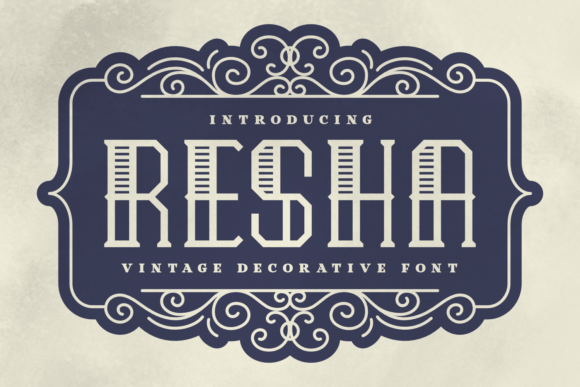
Discover Resha Font, the ultimate decorative font that will transport you back in time to an era of vintage charm and nostalgia. This striking serif display typeface has been meticulously crafted to capture the essence of old-school aesthetics, making it the perfect choice for designers and creatives seeking to evoke a sense of history and authenticity in their designs.
Immerse yourself in Resha Font's captivating collection of characters, each meticulously designed to exude a distinct vintage flair. Admire the graceful curves and sharp edges that blend harmoniously to create a font that is both visually stunning and highly legible. Resha Font's vintage-inspired design is not just a visual delight; it's a powerful storytelling tool that will add depth and character to your creative projects.
Whether you're working on a vintage branding project, designing a motorcycle event poster, or creating eye-catching car advertisements, Resha Font is your go-to choice for injecting a touch of timeless elegance into your designs. Its versatility extends beyond these specific applications; Resha Font is equally at home in logos, posters, packaging, and a myriad of other design projects.
With Resha Font at your disposal, you'll be able to effortlessly create designs that resonate with audiences who appreciate the charm and nostalgia of bygone eras. Its strong visual presence will command attention and leave a lasting impression on your target audience, making your designs truly unforgettable.